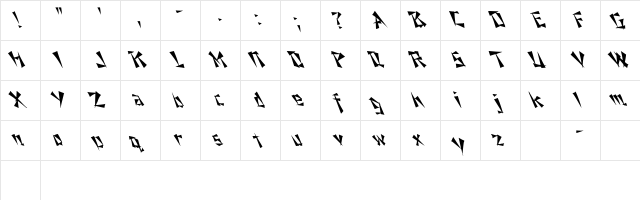
Nixon Was A Lefty Regular
Design Context for Nixon Was A Lefty Typeface
Nixon Was A Lefty is a composed and adaptable typeface that performs quietly and consistently across a wide range of design contexts.